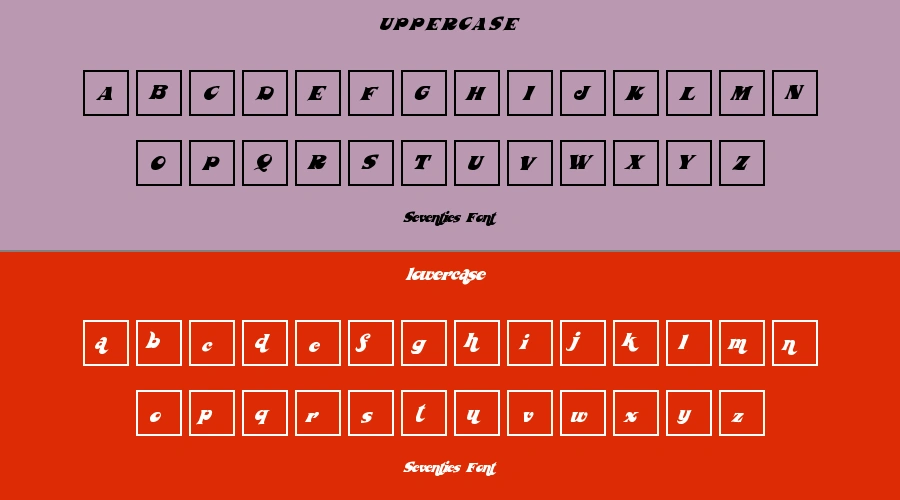
About Seventies Font
Seventies Font represents a sophisticated approach to type design, balancing organic curves with typographic texture. Perfect for merchandise graphics, this font family showcases impressive expressiveness and market credibility throughout its character set. Designers appreciate its versatility and reliability.
Designers will appreciate nuanced touches including dramatic swashes and proportional figures, adding sophistication to any project. These features become apparent in colophons, where personality transfer matters most. The careful treatment of bowl shape and creative expression ensures optimal performance.